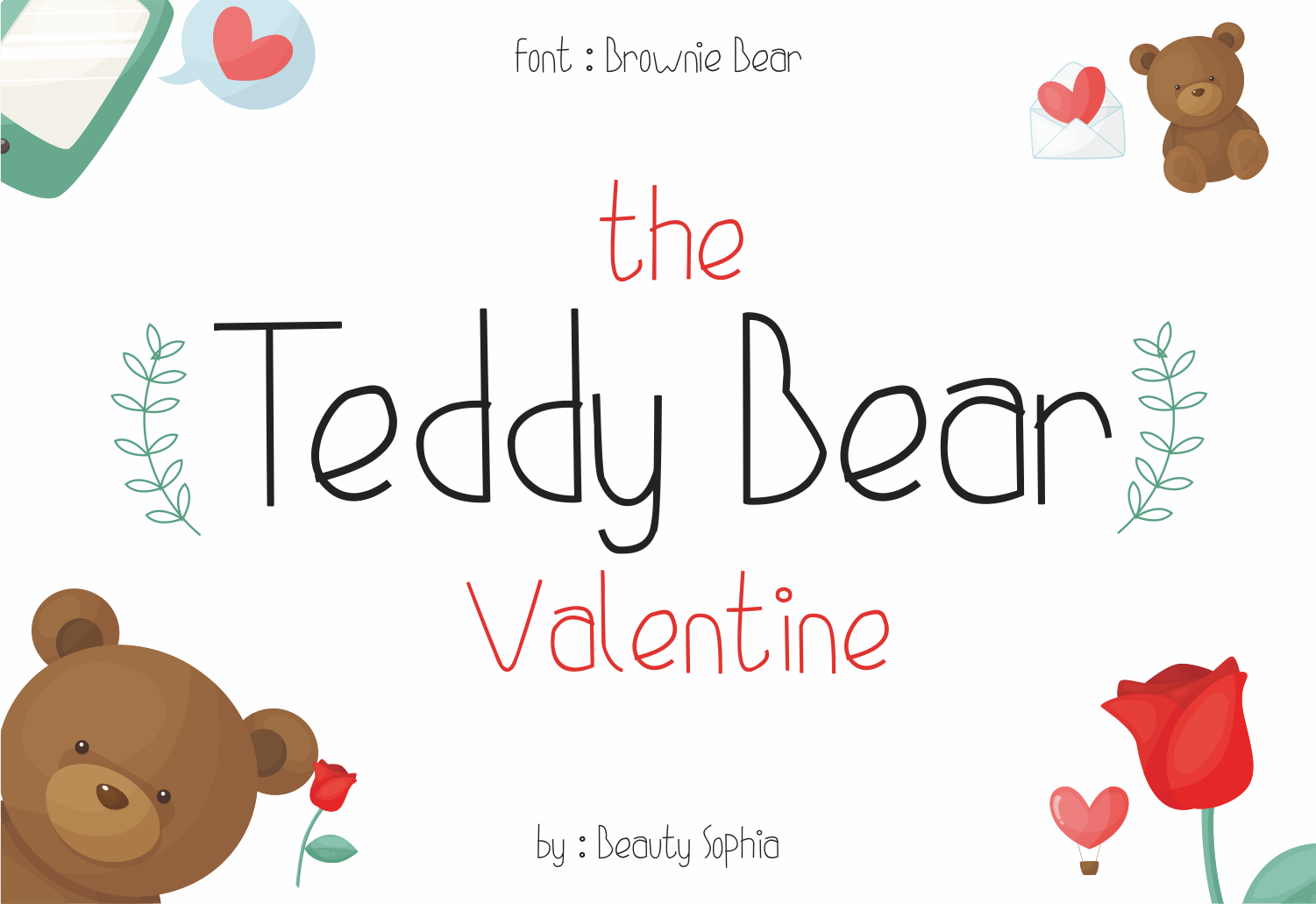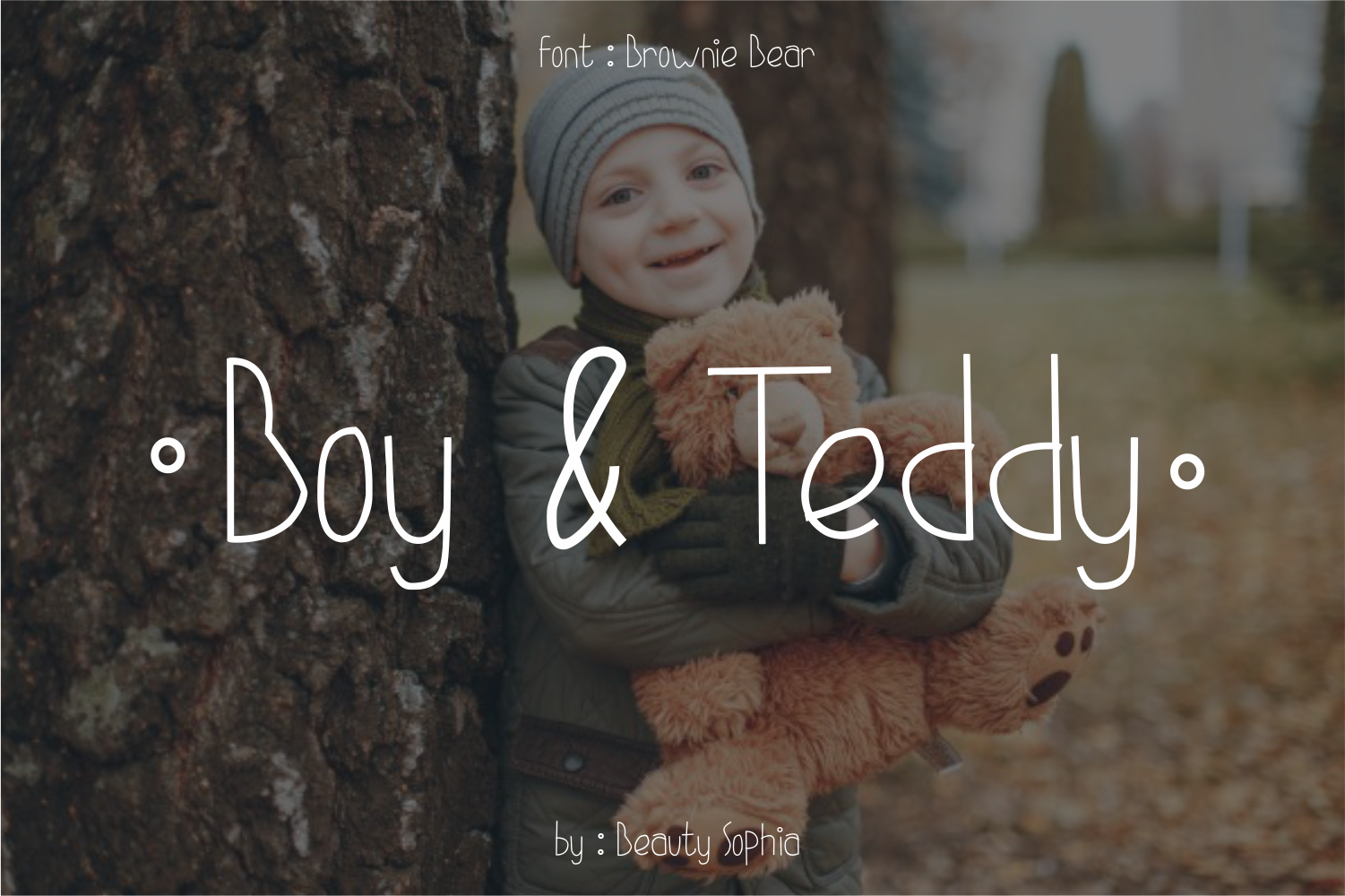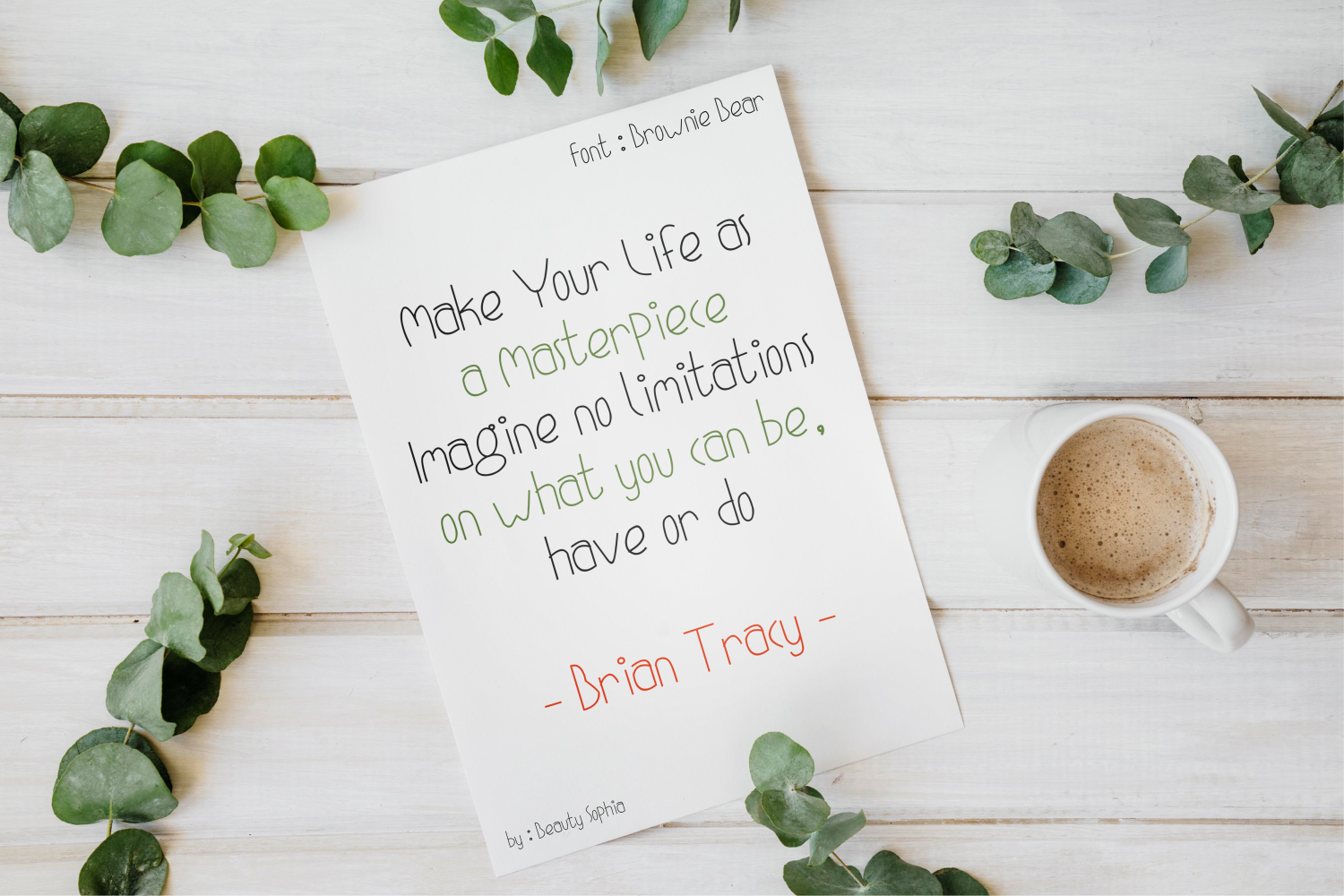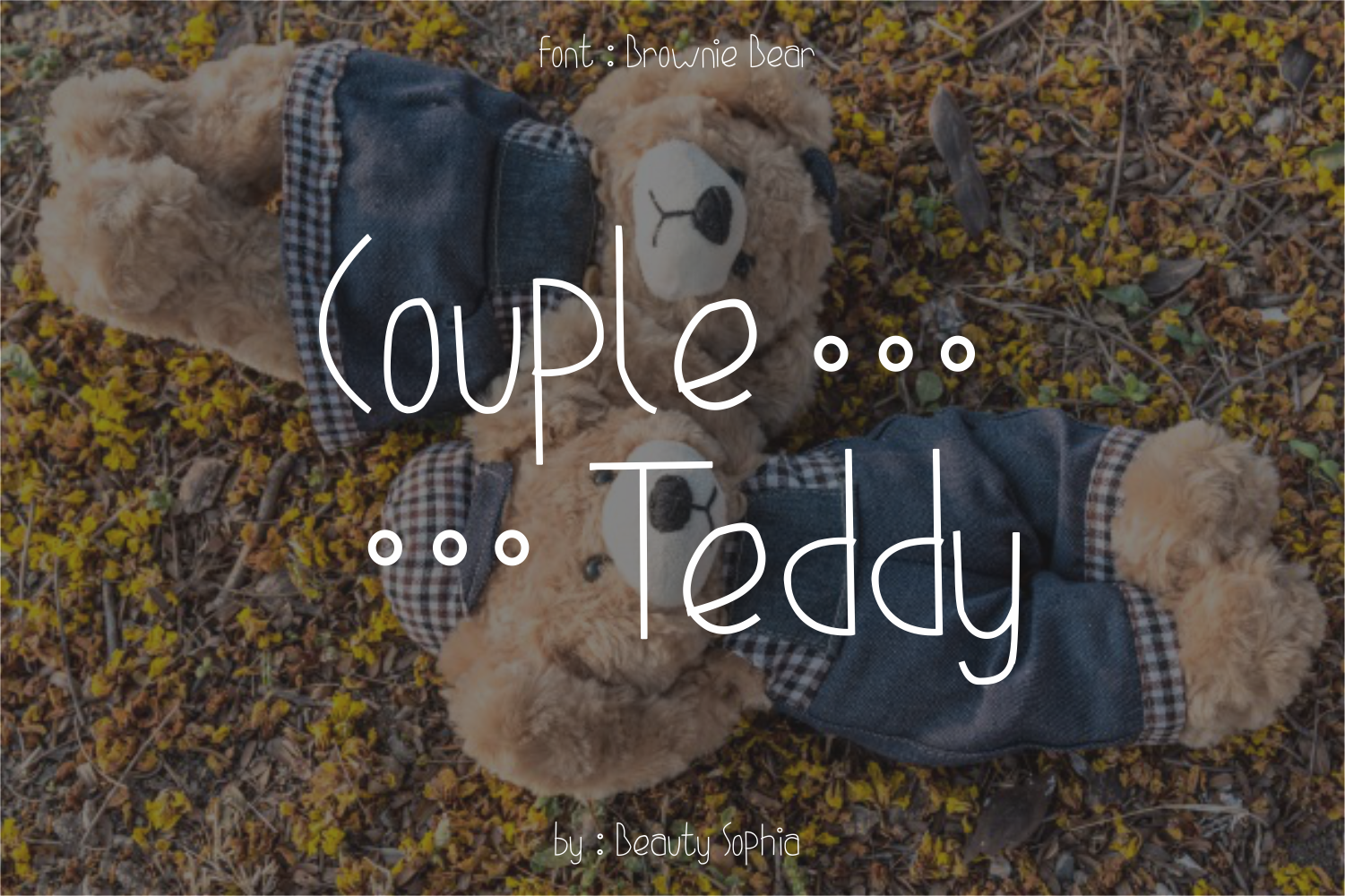
Brownie Bear Font: A Soft and Approachable Sans Serif Font for Designers and Crafters
Who isn’t familiar with teddy bears? Everyone grows up with a teddy bear, and thoughts of these stuffed animals evoke a sense of familiarity and warmth. For many of us, teddy bears are a symbol of comfort, security, and nostalgia. They are a reminder of childhood innocence and simplicity. With this in mind, the creators of Brownie Bear Font aimed to simulate those feelings in a digital format. Brownie Bear is a soft and approachable sans serif font designed to bring a sense of warmth and friendliness to your designs.
The Inspiration Behind Brownie Bear Font
The inspiration behind Brownie Bear Font is the classic teddy bear. The font’s design is based on the rounded and cuddly features of these beloved stuffed animals. The result is a font that is both playful and endearing, making it perfect for designs that require a personal touch. Whether you’re working on a project for a children’s brand, a craft business, or a personal blog, Brownie Bear Font is sure to bring a smile to your audience’s faces.
Key Features of Brownie Bear Font
Brownie Bear Font is a sans serif font, which means it doesn’t have the small lines or flourishes at the ends of the letters. This gives the font a clean and modern look that’s perfect for digital designs. Here are some of the key features of Brownie Bear Font:
- Soft and rounded letters: The letters in Brownie Bear Font are designed to be soft and rounded, giving the font a friendly and approachable feel.
- Clean and modern design: The sans serif design of Brownie Bear Font makes it perfect for digital designs, such as websites, social media graphics, and digital crafts.
- Highly legible: The font is designed to be highly legible, even at small sizes, making it perfect for body text and captions.
- Multilingual support: Brownie Bear Font supports multiple languages, making it a great choice for designers and crafters who work with international clients.
Use Cases for Brownie Bear Font
Brownie Bear Font is a versatile font that can be used in a variety of design projects. Here are some use cases for the font:
- Children’s branding and marketing: The font’s playful and endearing design makes it perfect for children’s brands, such as toy companies, kids’ clothing brands, and children’s entertainment.
- Crafting and DIY projects: The font’s soft and approachable design makes it perfect for crafting and DIY projects, such as handmade cards, gift tags, and scrapbooking.
- Personal blogs and websites: The font’s friendly and approachable design makes it perfect for personal blogs and websites, such as lifestyle blogs, food blogs, and travel blogs.
- Social media graphics: The font’s clean and modern design makes it perfect for social media graphics, such as Facebook posts, Instagram graphics, and Twitter headers.
Tips for Using Brownie Bear Font
Here are some tips for using Brownie Bear Font in your designs:
- Pair with bold fonts: Brownie Bear Font is a soft and approachable font, so it’s best paired with bold fonts to create contrast and visual interest.
- Use for body text: The font’s high legibility makes it perfect for body text, such as paragraphs and captions.
- Experiment with colors: The font’s friendly design makes it perfect for experimenting with bright and bold colors.
- Use for titles and headings: The font’s playful design makes it perfect for titles and headings, such as blog post titles and section headings.
| Author | beautysophia |
Brownie Bear Font is a soft and approachable sans serif font that’s perfect for designers and crafters who want to add a personal touch to their designs. With its rounded and cuddly design, the font is sure to evoke feelings of warmth and familiarity in your audience. Whether you’re working on a project for a children’s brand, a craft business, or a personal blog, Brownie Bear Font is a great choice. So why not give it a try and see how it can add a touch of warmth and friendliness to your designs?